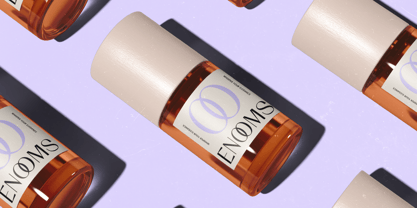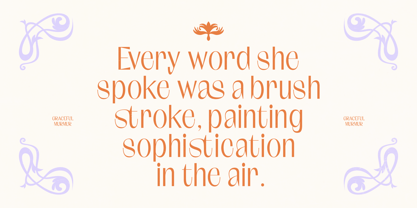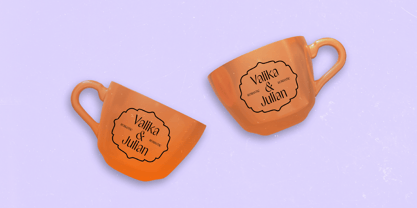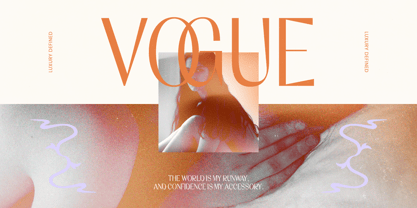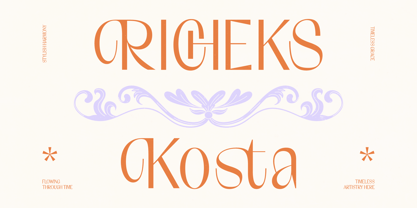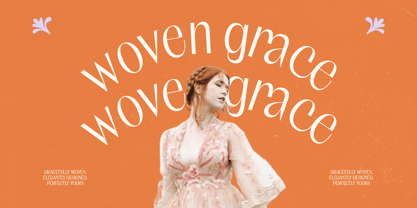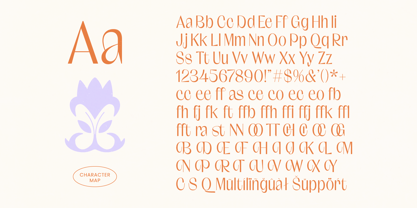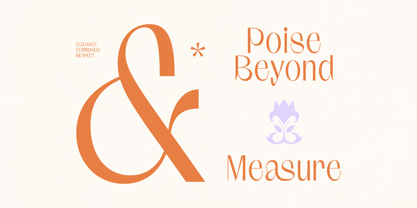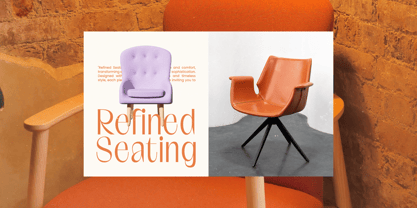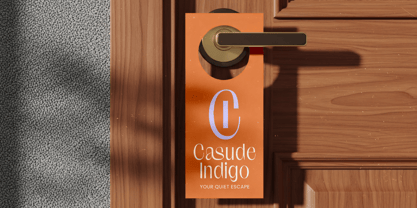
Richeks Kosta
by Timelesstype Studio
The Richeks Kosta Font Family was designed by Heru Utama Putra and published by Timelesstype Studio. Richeks Kosta contains 2 styles and family package options. More about this family
Richeks Kosta – Thin Sans Serif. This contemporary display typeface masterfully blends high-contrast strokes with a minimalist aesthetic, resulting in a visual experience that is both timeless and trendy. It exudes an aura of exclusivity and refined grace, making it an essential choice for designers seeking to convey premium quality through typography.
Discover the perfect typographic solution for your high-end brand identity and visual storytelling. Richeks Kosta – Thin Sans Serif is specifically engineered for luxury branding, high-end packaging, and sophisticated editorial design. It is perfect for logo design, fashion magazines, and lifestyle advertising where a clean look is paramount. Its selection of unique ligatures and artistic alternates allows for customized layouts that capture the viewer's attention instantly.